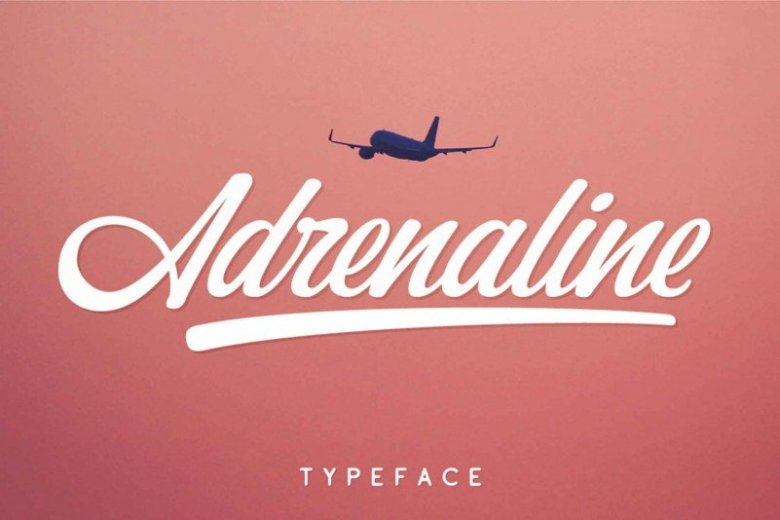
Adrenaline Font
Adrenaline Script Font perfect for any creative design. This handmade font will make your design has a beautiful natural touch for each details. Made from font designer named Larin Type Co. Playful, modern, and multi-purpose.
This font are perfect for works to logos, prints, quotes, magazine headers and clothing, or your blog. Also with their help, you can create a logo or beautiful frame for your home. Or just use for your small business, book covers, stationery, marketing, magazines and more.